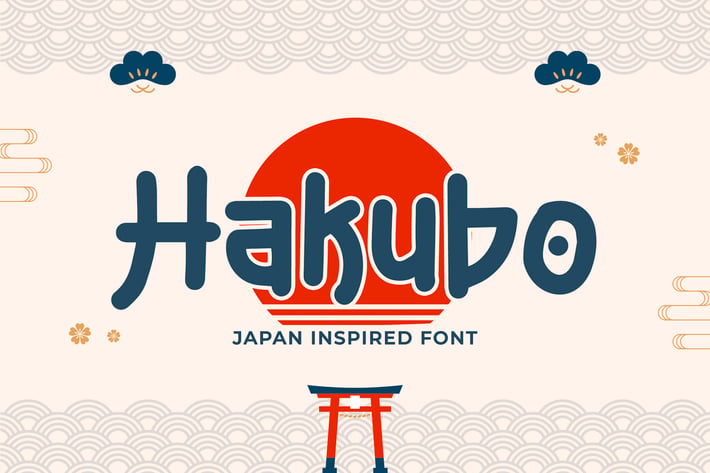
Hakubo - Japan Inspired Font
Hakubo is an awesome Japanese-inspired display font. It has great readability and will add a striking touch to any design! It will look awesome on media promotion.